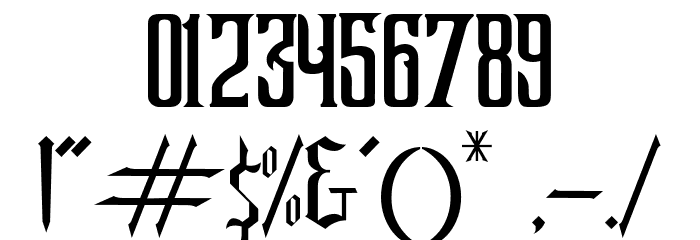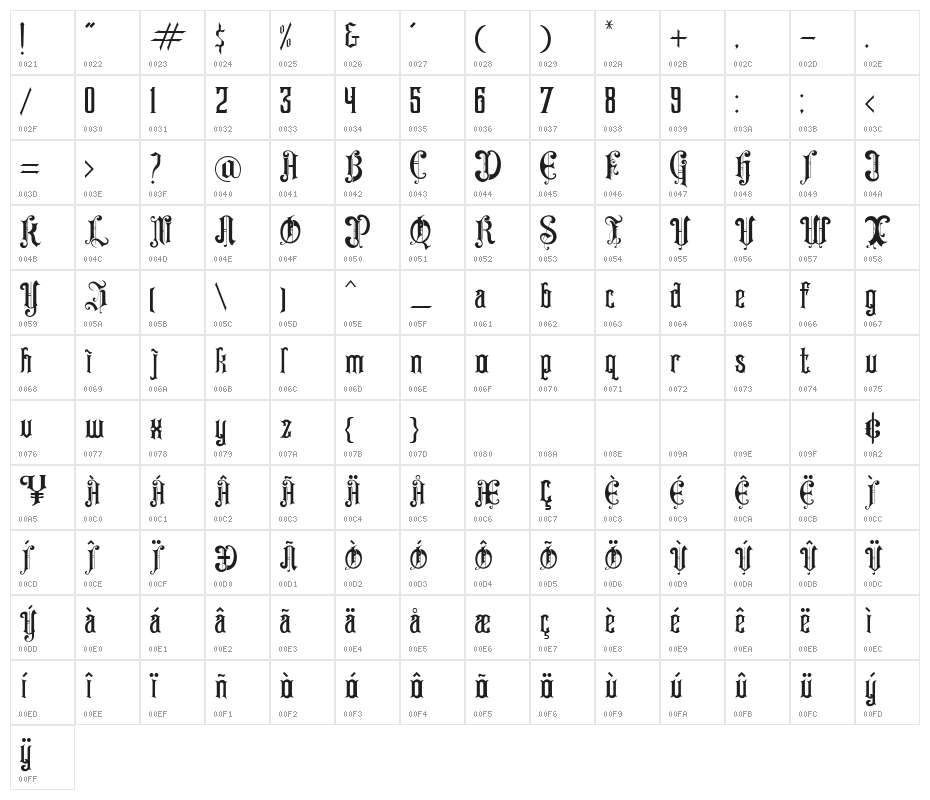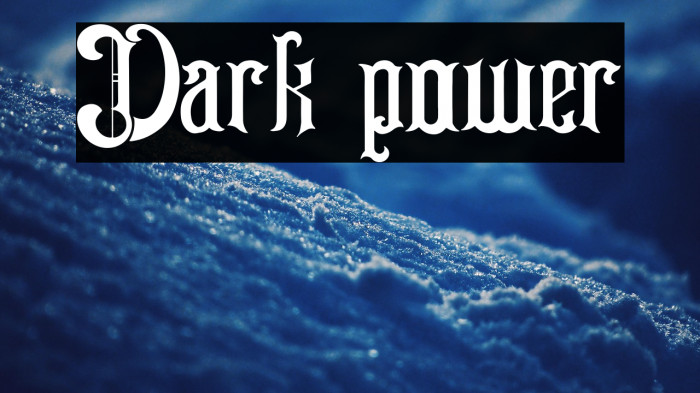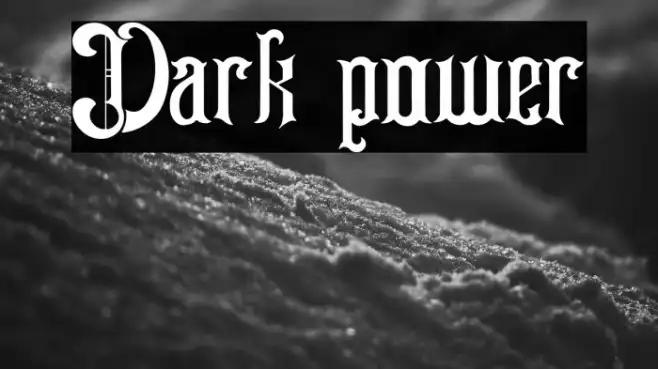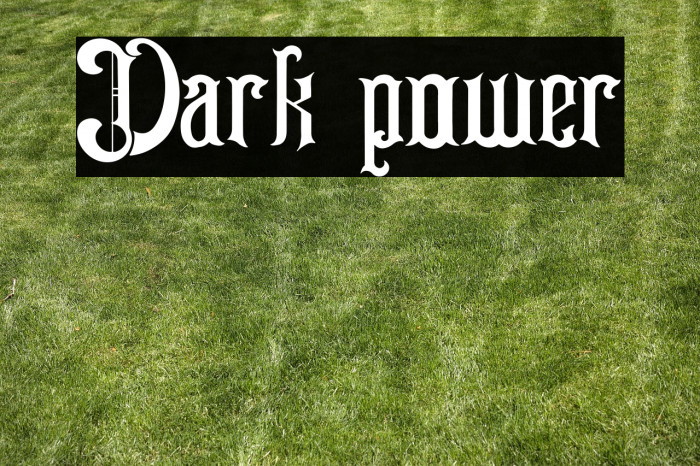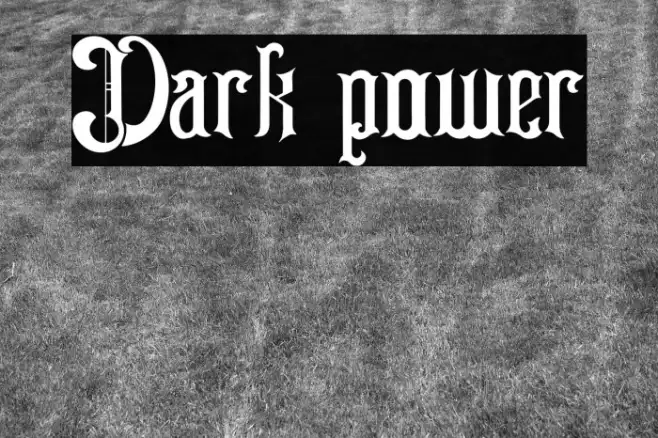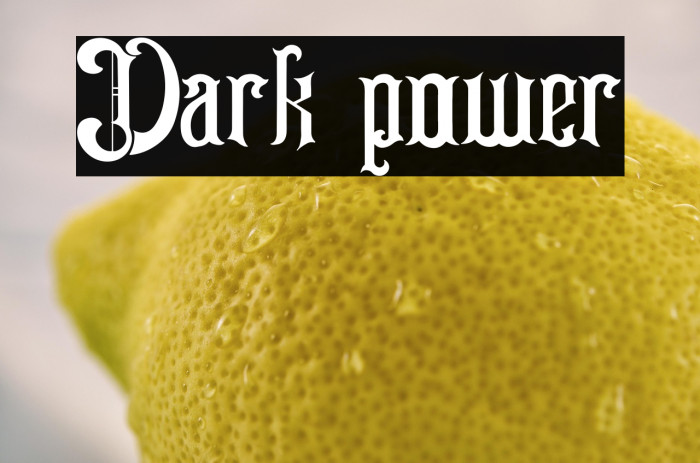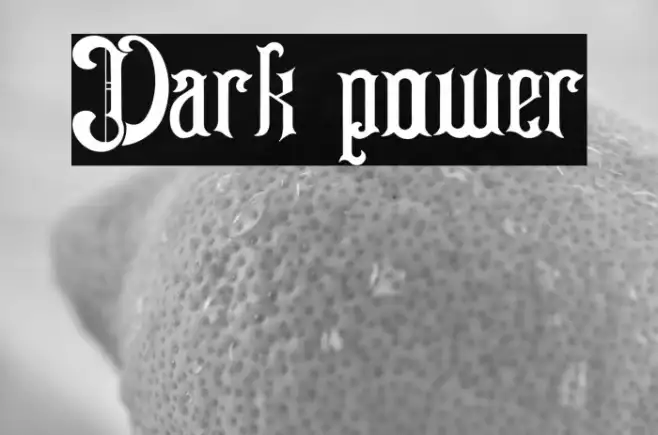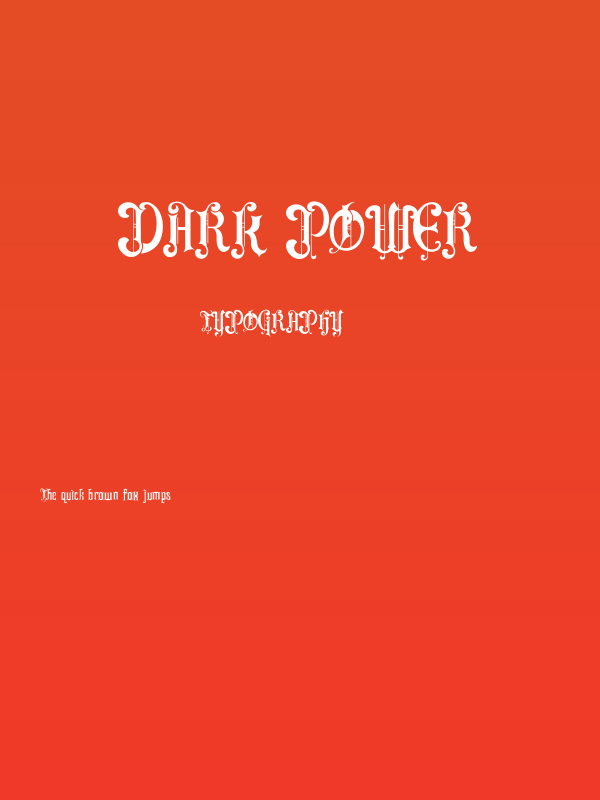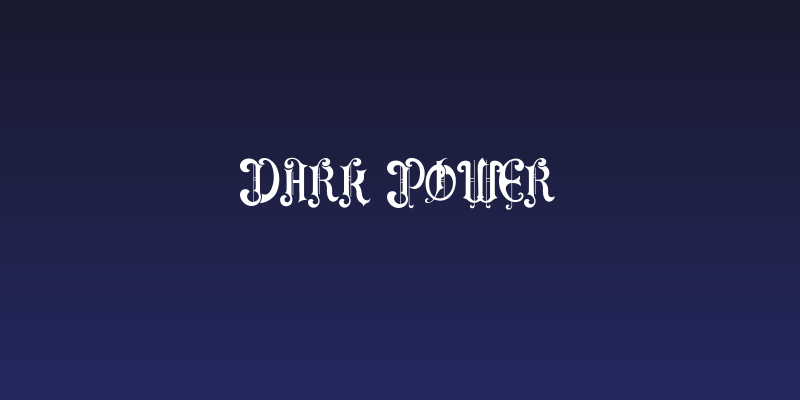
Dark power Font
Dark power Description
This font features a bold and dramatic style, reminiscent of traditional Gothic or Blackletter typography. The characters are ornate, with intricate detailing and sharp, angular lines that give it a distinct medieval appearance. The uppercase letters are particularly elaborate, with decorative flourishes and extended serifs that enhance its historical feel. The lowercase letters maintain the same level of detail, ensuring consistency across the font. Numbers and special characters are designed to match the overall aesthetic, making it suitable for creating a cohesive look in projects that require a touch of old-world charm.
Overall StyleVintage
Use CaseLogos, Headlines, Decorative text
Proposed ProjectsIdeal for use in historical-themed designs, book covers, posters, and branding that requires a vintage or dramatic touch.